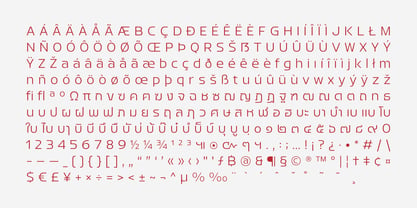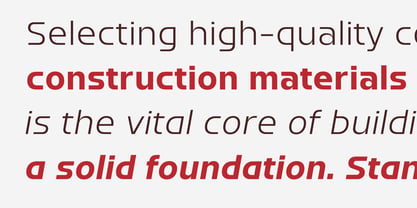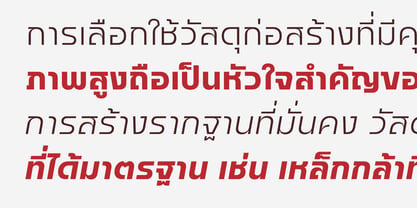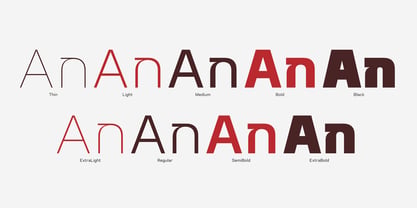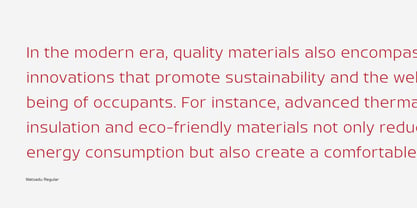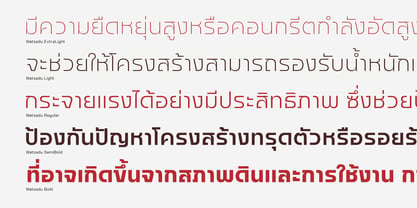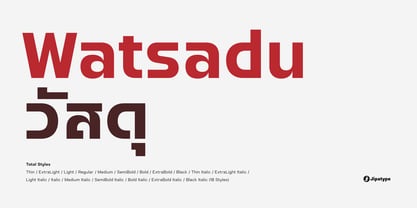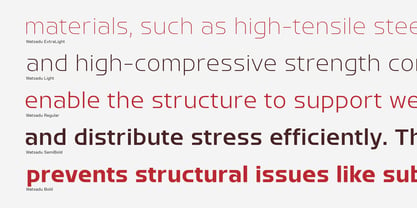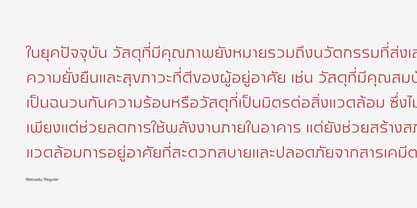
Watsadu
The Watsadu Font Family was designed by Anupap Jaichumnan and published by Jipatype. Watsadu contains 18 styles and family package options. More about this family
Watsadu is a sans-serif typeface supporting both Latin and loopless Thai scripts, distinguished by its sturdy, stable, modern, and clean structural design. With simple strokes harmoniously blended with geometric proportions, the characters feature a well-balanced, wide foundation that ensures excellent legibility across all sizes while exuding a sense of formal reliability. This extensive font family comes in 18 styles, comprising 9 weights (ranging from the ultra-light Thin to the heavy Black) along with their matching italics, offering high flexibility for creating clear visual hierarchies. Thanks to its solid yet contemporary appearance, Watsadu is an ideal choice for design works requiring a professional image, such as corporate identity, logos, branding, primary headlines, signage, and packaging. It is particularly well-suited for projects in the industrial, architectural, or technological sectors that aim to convey a strong, robust, and cutting-edge foundation.
Jipatype is a type foundry founded and operated solely by Anupap Jaichamnarn, based in Bangkok, Thailand. Officially established in 2022, the foundry's journey began in 2019. The name "Jipatype" is derived from the Thai word “Jipatha” (จิปาถะ), meaning "miscellaneous" or "variety." This name reflects the diverse design concepts and influences that shape Jipatype’s versatile font collections.